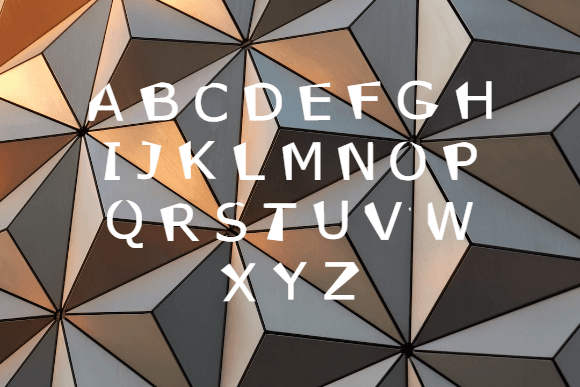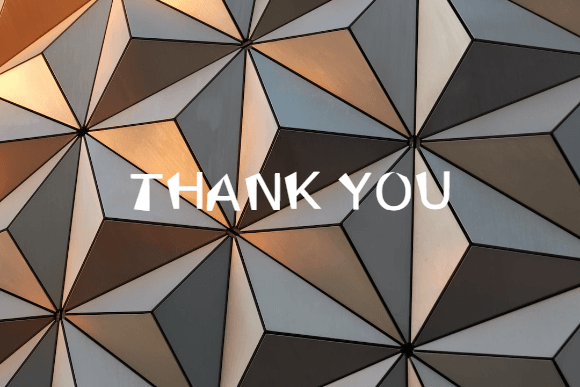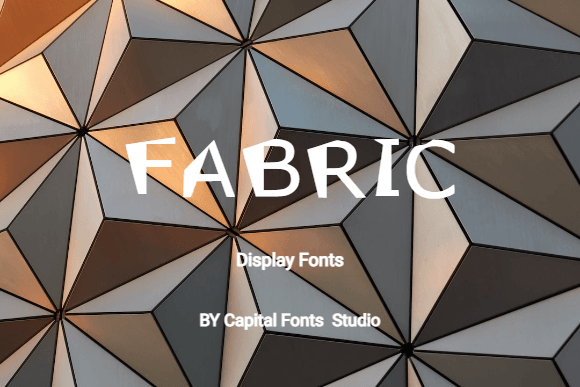
Introducing Fabric Font: The Perfect Blend of Fun and Creativity
Are you tired of using the same old fonts for your design projects? Look no further than Fabric Font, a bold and carefully designed font that’s sure to add a touch of playfulness to your creations. With its unique combination of fun and creativity, Fabric Font is the perfect choice for designers and crafters looking to make their projects stand out.
What is Fabric Font?
Fabric Font is a specially crafted font that’s designed to help you create fun and engaging projects. Its bold and eye-catching design makes it perfect for a wide range of design ideas, from playful posters and flyers to creative crafts and DIY projects. Whether you’re a professional designer or a crafty hobbyist, Fabric Font is sure to inspire your creativity and take your projects to the next level.
Key Features of Fabric Font
So, what makes Fabric Font so special? Here are just a few of its key features:
• Bold and eye-catching design: Fabric Font is designed to grab attention and make a statement. Its bold and playful design is sure to add a touch of fun to any project.
• Incredibly versatile: Whether you’re creating a poster, flyer, or craft project, Fabric Font is suitable for a wide range of design ideas.
• Perfect combination of fun and creativity: Fabric Font is designed to inspire your creativity and help you create unique and engaging projects.
• Easily readable: Despite its bold design, Fabric Font is easy to read and understand, making it perfect for use in a variety of projects.
Why Choose Fabric Font?
With so many fonts to choose from, why should you choose Fabric Font? Here are just a few reasons:
• Stand out from the crowd: Fabric Font is designed to help you create unique and eye-catching projects that will stand out from the crowd.
• Inspire your creativity: With its playful and creative design, Fabric Font is sure to inspire your creativity and help you come up with new and exciting design ideas.
• Save time: Fabric Font is easy to use and comes with a range of features that make it easy to customize and adapt to your needs.
How to Use Fabric Font
Using Fabric Font is easy. Here are just a few tips to get you started:
• Pair it with other fonts: Fabric Font pairs well with a range of other fonts, so don’t be afraid to experiment and find the perfect combination for your project.
• Experiment with colors: Fabric Font looks great in a range of colors, so try experimenting with different colors and shades to find the perfect look for your project.
• Use it for headings and titles: Fabric Font is perfect for use in headings and titles, where its bold and eye-catching design can really make an impact.
In conclusion, Fabric Font is a bold and carefully designed font that’s perfect for designers and crafters looking to add a touch of fun and creativity to their projects. With its unique combination of playfulness and versatility, Fabric Font is sure to inspire your creativity and help you create unique and engaging projects. So why not give it a try and see what amazing creations you can come up with?